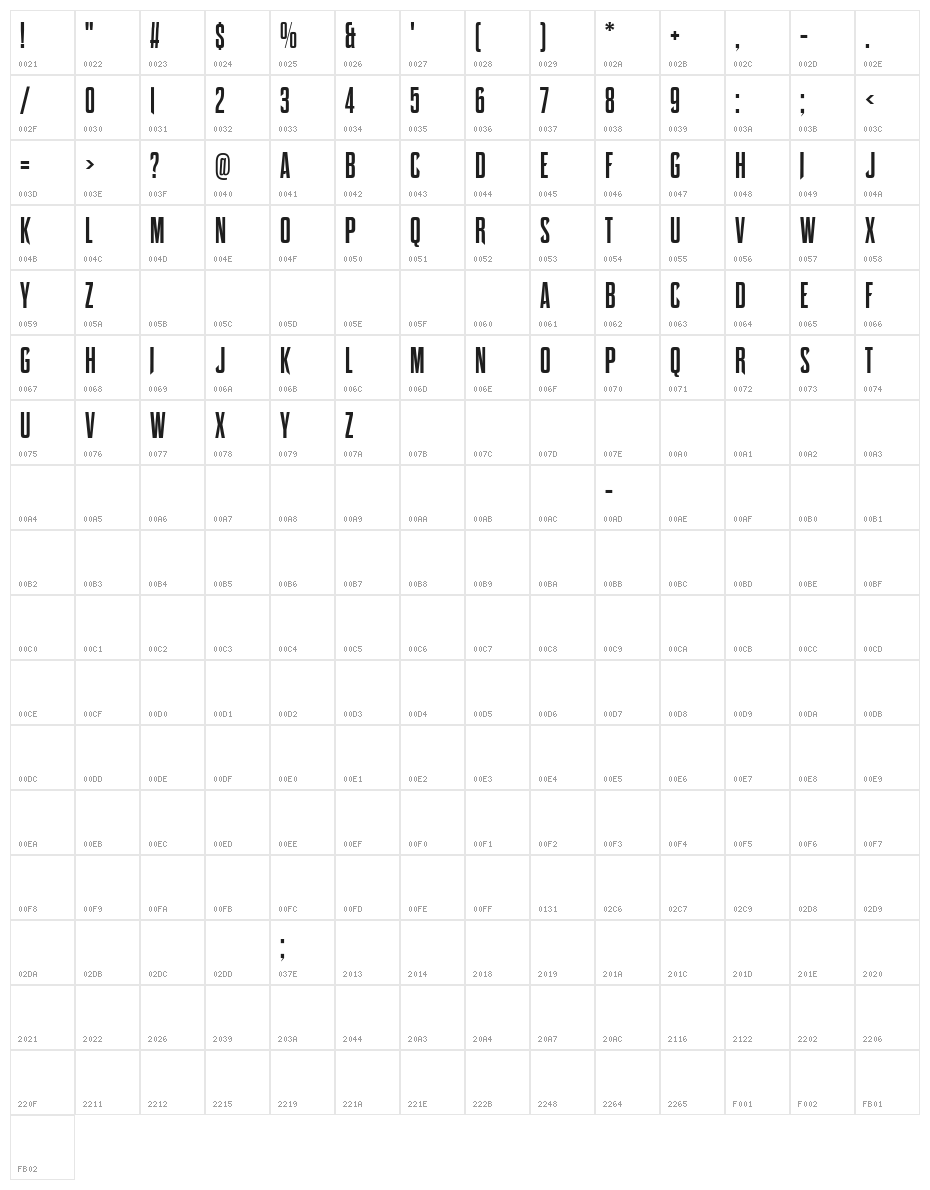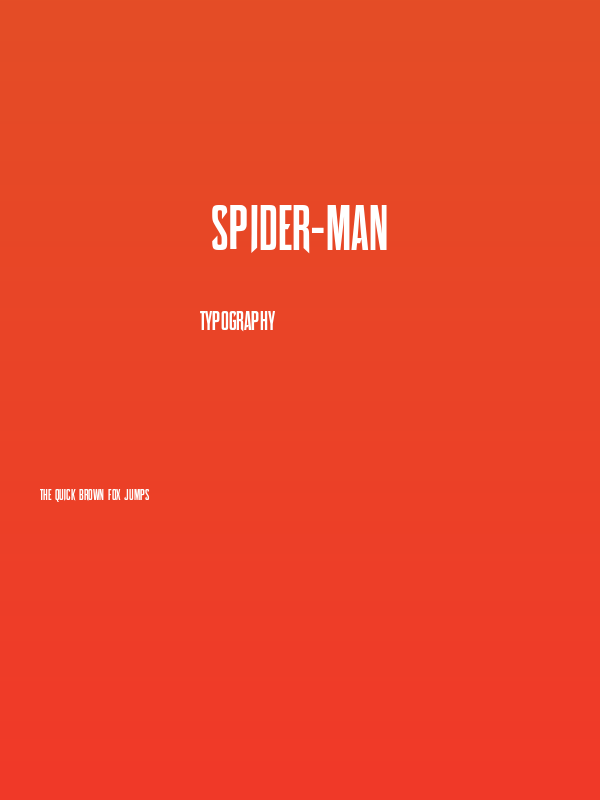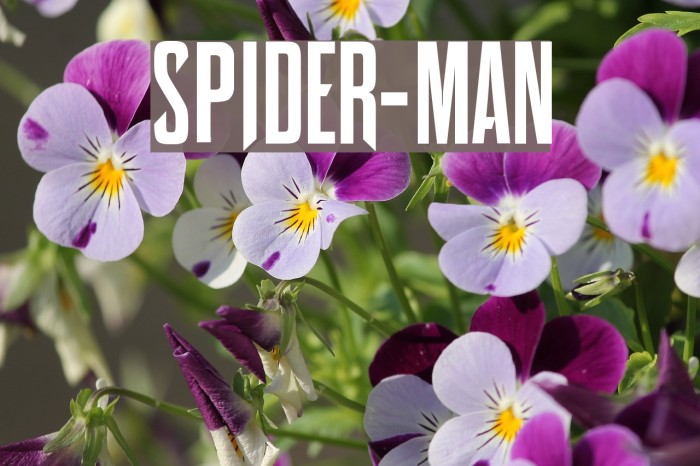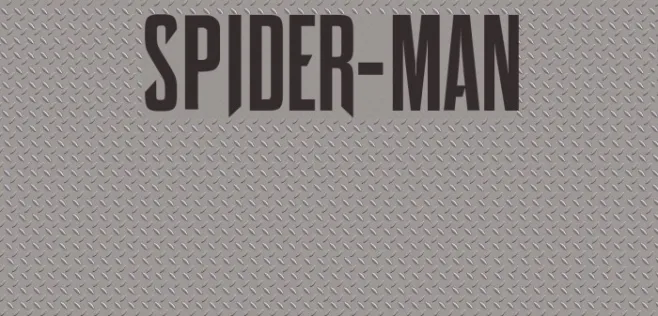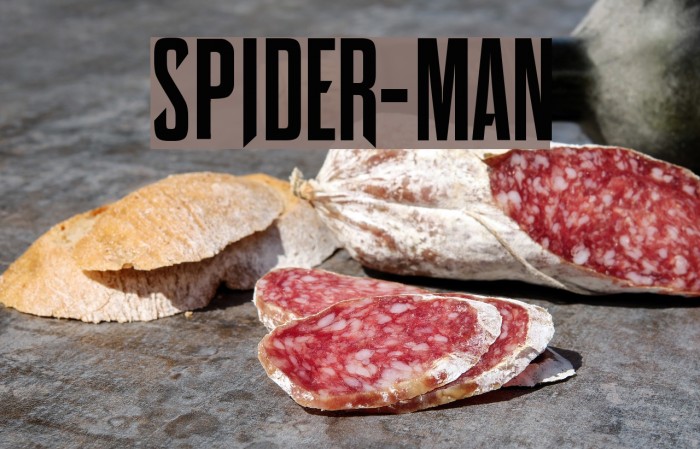
Spider-Man Font
Spider-Man Description
This font features a bold and impactful design with tall, narrow characters that convey a sense of strength and modernity. The uppercase letters are particularly striking, with sharp angles and clean lines that create a dynamic and energetic appearance. The numbers and special characters maintain the same boldness, ensuring consistency across all text elements. The overall style is reminiscent of classic comic book fonts, making it ideal for projects that require a touch of nostalgia or a superhero theme.